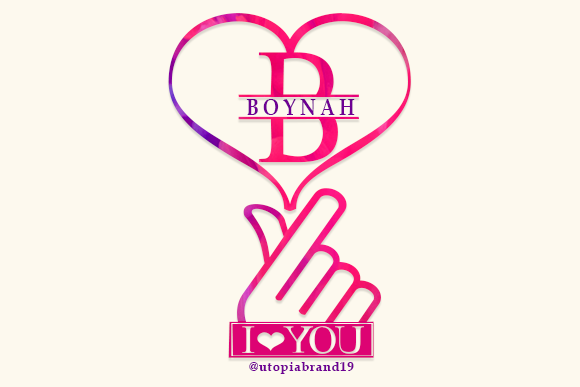
Journey into a realm of sophistication and charm with Boynah Monogram, an exquisite decorative font that will transform your designs into timeless works of art. This elegant creation, brought to life by the skilled hands of utopiabrand19, seamlessly blends classic aesthetics with a touch of whimsy, making it the perfect choice for crafting beautiful wedding invitations, enchanting stationary art, captivating social media posts, and heartwarming greeting cards.
Immerse yourself in the beauty of its intricate ornaments, each stroke meticulously crafted to evoke a sense of authenticity and elegance. Boynah Monogram's graceful curves and delicate flourishes will add a touch of enchantment to your projects, leaving a lasting impression on your audience.
With Boynah Monogram, you'll have the power to create designs that radiate warmth and charm. Its versatility knows no bounds, making it an ideal choice for a wide range of projects.
Elevate your wedding invitations to new heights of elegance, transforming them into cherished keepsakes that capture the joy and romance of your special day.
Design breathtaking stationary art that reflects your unique style and personality, creating pieces that are as meaningful as they are beautiful.
Captivate your audience on social media with eye-catching posts that demand attention, leaving a lasting impression and growing your following.
Craft heartwarming greeting cards that express your love and appreciation, making each recipient feel truly cherished and remembered.
Boynah Monogram is more than just a font; it's an invitation to unleash your creativity and create designs that resonate with your audience. Its enchanting beauty and endless versatility make it the perfect choice for those seeking to leave a lasting impression.
Don't resist the allure of Boynah Monogram. Embrace its elegance, immerse yourself in its charm, and embark on a creative journey that will produce designs that captivate and inspire. Let Boynah Monogram be your guide as you create visual masterpieces that leave an indelible mark on the hearts of your audience.